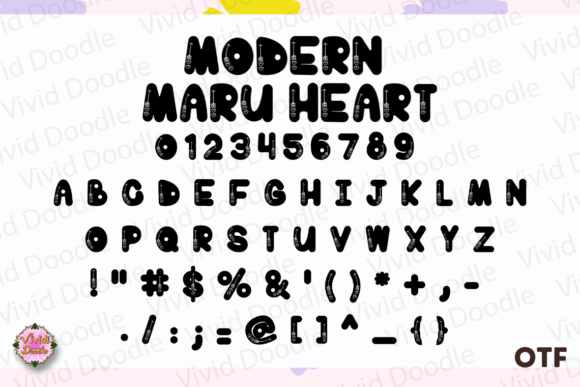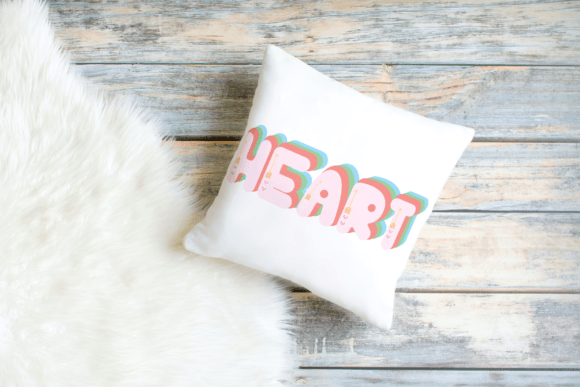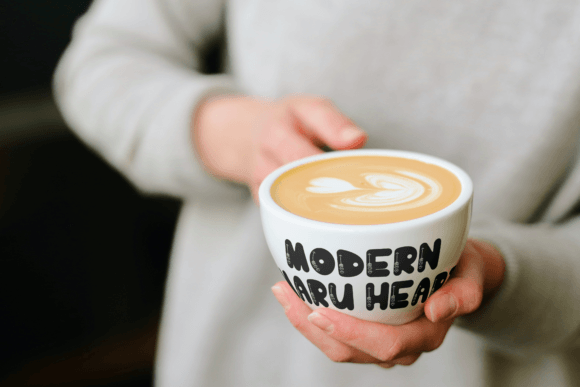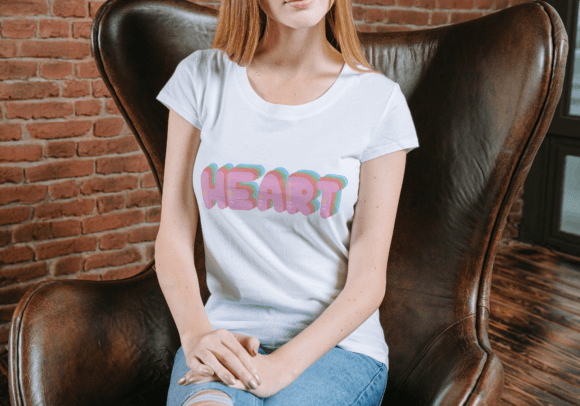
Introduction to Modern Maru Heart Font
Introducing Modern Maru Heart font—an expressive typeface where every letter and character is intricately designed to embody the essence of love, perfect for Valentine’s Day, heartfelt messages, and creative art projects.
Each character features a contemporary take on the classic heart shape, bringing a modern and romantic touch to your designs Whether it’s Valentine’s Day cards, love letters, holiday-themed projects, or any creative endeavor, this font seamlessly blends modern aesthetics with heartfelt charm.
Key Features of Modern Maru Heart Font
Why Choose Modern Maru Heart Font?